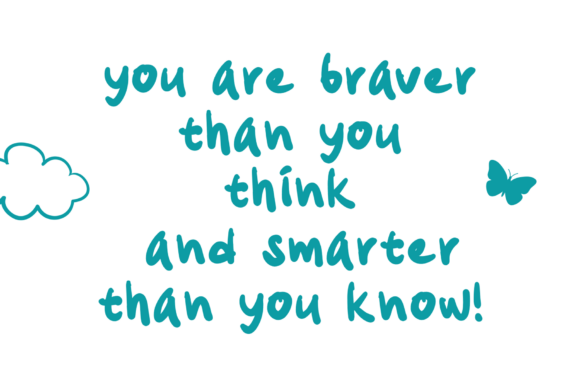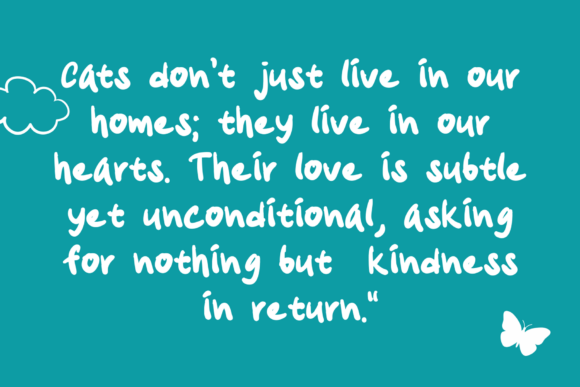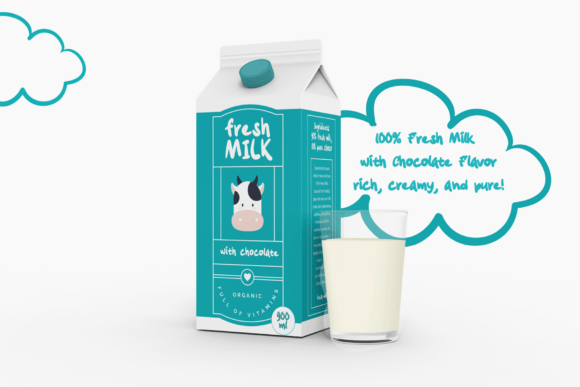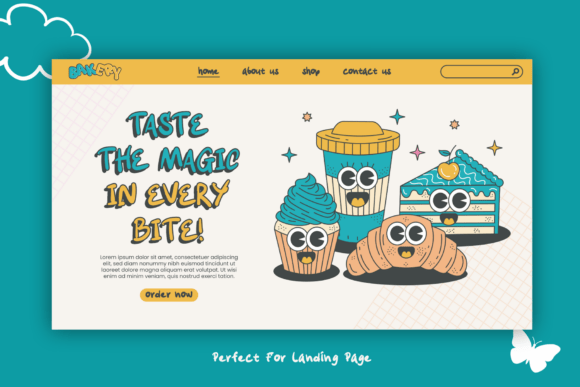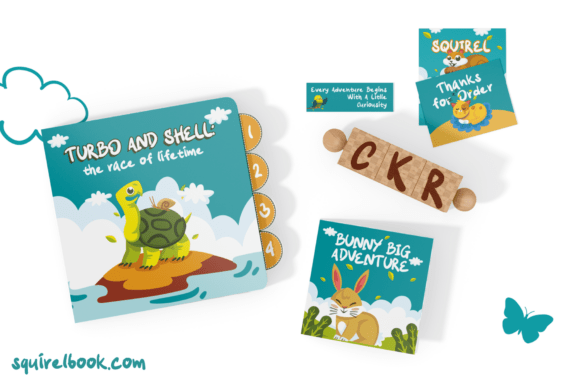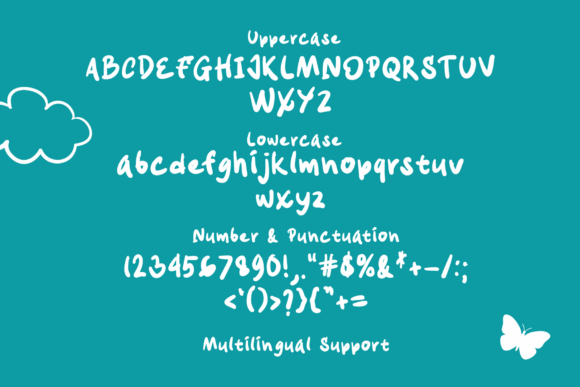
Unlocking Childhood Whimsy with Arlo Lines Font
Do you remember the joy of scribbling with a crayon or marker, watching your artwork come to life with every stroke? For many of us, those carefree moments sparked a love for creativity that’s stayed with us into adulthood.
Arlo Lines Font is a spirited handwritten font that embodies the essence of childhood creativity, offering two styles – Regular (Solid) and Outlined – to add a touch of authenticity to your designs. This charming font is perfect for designers looking to infuse their projects with a warm, friendly vibe. Whether you’re working on children’s literature, learning aids, or whimsical branding, Arlo Lines Font is a valuable addition to your toolkit, offering an inviting and engaging magic that’s sure to captivate your audience.
Arlo Lines Font Key Features
- Unique Characteristics: The font features a distinctive hand-drawn, line-based design, with varying line widths and subtle irregularities that give it a unique, human touch.
- Line Width and Spacing: The font’s line width and spacing can be adjusted using the font’s OpenType features, allowing for a high degree of customization and flexibility.
- Font Weight and Style: Arlo Lines Font is available in multiple weights, including light, regular, bold, and extra bold, as well as italic and oblique styles.
Arlo Lines Font Review
I recently had the chance to work with Arlo Lines Font, and I have to say, it’s an interesting addition to any design project. ✨ Here are some of its standout features:
- Unique aesthetic: Arlo Lines Font has a distinct, hand-drawn feel that can add a touch of personality to your designs.
- Wide character set: It includes a wide range of characters, including numbers, punctuation, and special symbols.
- Easy to read: Despite its hand-drawn appearance, Arlo Lines Font is surprisingly easy to read, even at smaller font sizes.
However, there are some limitations to keep in mind ⚠️:
- Limited font weights: Arlo Lines Font only comes in a few different font weights, which may limit its versatility.
- Not ideal for large blocks of text: While it’s great for headings and short paragraphs, Arlo Lines Font may not be the best choice for large blocks of text due to its hand-drawn appearance.
Overall, I think Arlo Lines Font is a great addition to any design project that needs a unique touch. While it may have some limitations, its unique aesthetic and easy readability make it a solid choice for designers looking to add some personality to their work.
Getting the Most Out of Arlo Lines Font
For best results, use the Arlo Lines Font in bold or italic styles to add emphasis to your text.
The Arlo Lines Font is ideal for:
- Creating modern and minimalist designs.
- Adding a touch of elegance to your typography.
- Designing for fashion, beauty, or lifestyle brands.
Alternatives to Arlo Lines Font for Designers
Great Vibes is a modern script font with a relaxed, casual feel. It’s perfect for designers looking to create a friendly and approachable tone in their projects. Great Vibes is a great alternative to Arlo Lines Font when you need a more laid-back and expressive font.
Comparison: While Arlo Lines Font has a more geometric feel, Great Vibes Font is more fluid and organic. Great Vibes is ideal for titles, headings, and body text where a friendly tone is desired.
Alex Brush is a elegant script font with a touch of sophistication. It’s suitable for designers who want to convey luxury and refinement in their projects. Alex Brush Font is a great alternative to Arlo Lines Font when you need a more high-end and polished font.
Comparison: While Arlo Lines Font has a more playful feel, Alex Brush Font is more refined and elegant. Alex Brush is ideal for titles, headings, and body text where a sophisticated tone is desired.
Carolyna Pro is a modern script font with a strong, confident feel. It’s perfect for designers looking to create a bold and eye-catching tone in their projects. Carolyna Pro Font is a great alternative to Arlo Lines Font when you need a more dramatic and expressive font.
Can I customize the Arlo Lines Font for my specific project needs?
Yes, the Arlo Lines Font is a highly customizable font, allowing you to adjust various aspects such as line width, spacing, and color. You can also use font editing software to create custom versions of the font or modify its existing characteristics to suit your project’s requirements.